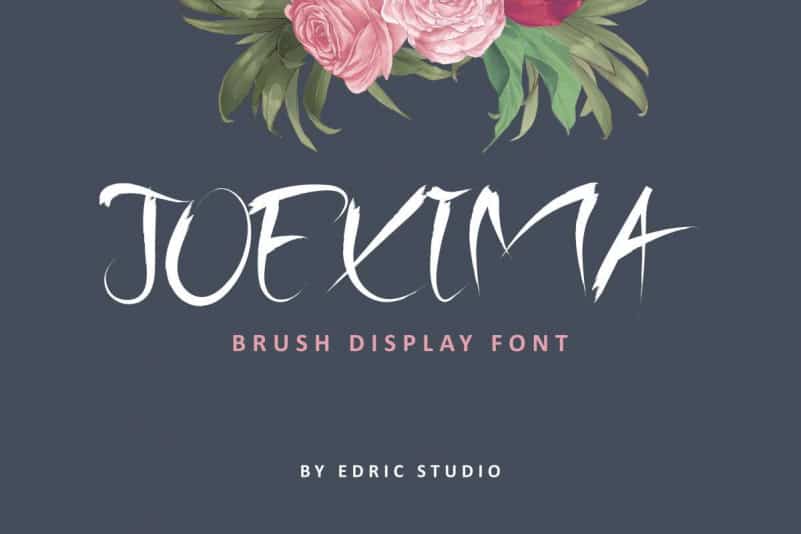
Joexima Brush Font
Introducing Joexima a handwritten brush fonts with a sharp attitude and full energy.
Joexima is ready and raring to make a big statement on your logo designs, brand imagery, handwritten quotes, product packaging, merchandise, music projects & social media posts. Lets enjoy it!